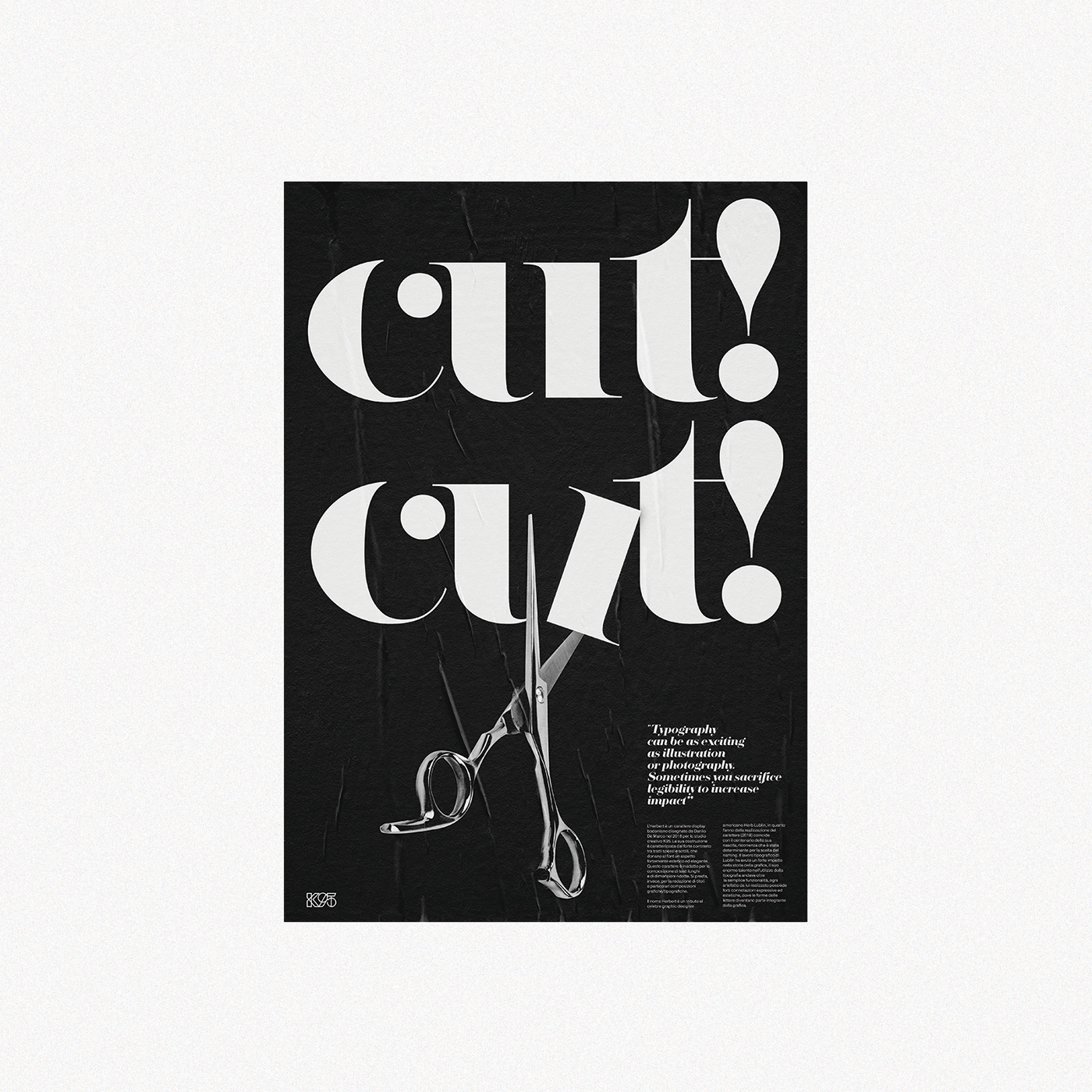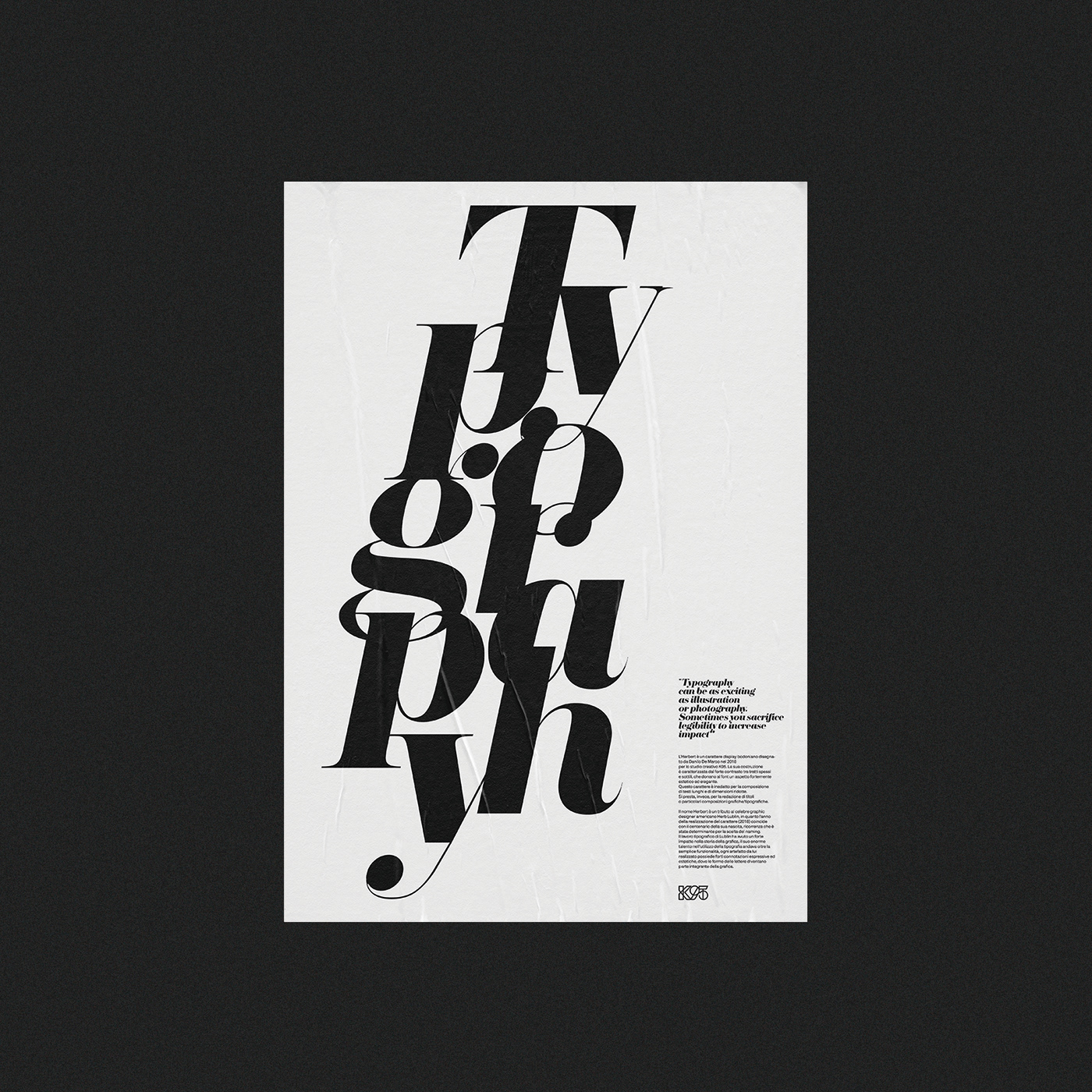
Herbert Posters serie
Herbert is a Didone Display font designed by Danilo De Marco in 2018/2019 for the K95 communication studio.
We designed 10 posters serie for advertise our new typeface, Herbert.
Herbert is a display serif typeface inspired from work of graphic designer Herb Lubalin.